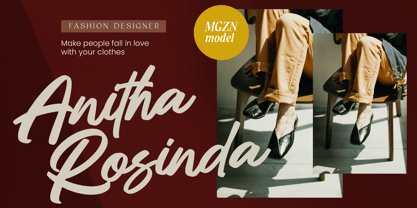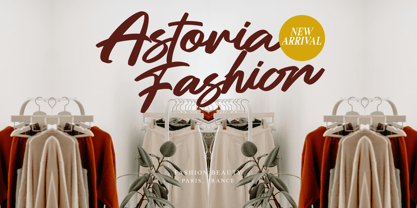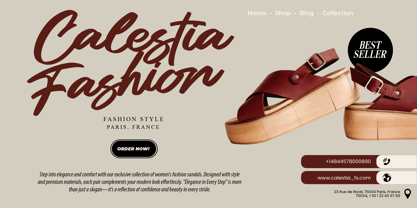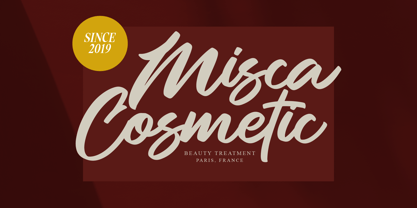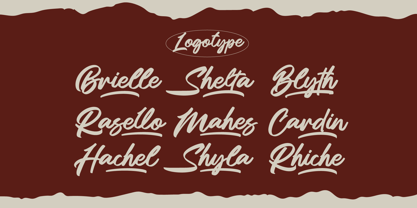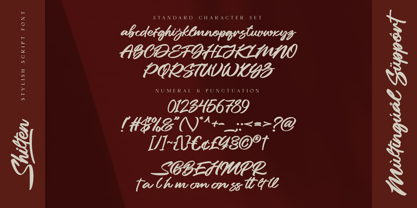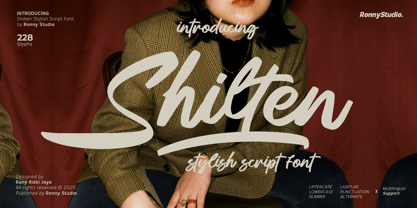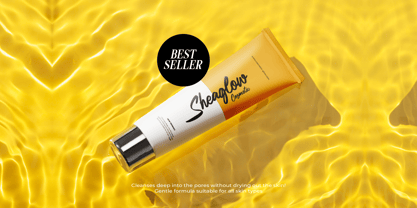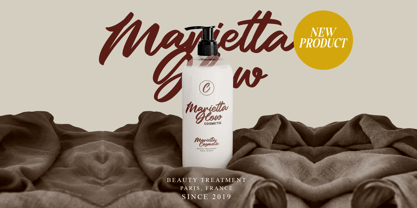
Shilten
by Ronny Studio
The Shilten Font Family was designed by Rony Rizki Jaya and published by Ronny Studio. Shilten contains 2 styles and family package options.
Shilten Script Font is a modern script font with a natural, elegant, and dynamic touch. Designed to deliver a stylish and professional look, it’s perfect for logos, branding, quotes, product packaging, merchandise, and social media posts. With a perfect balance of modern style and handwritten charm, Shilten Script Font adds a luxurious and exclusive feel, making your designs stand out and captivate attention.